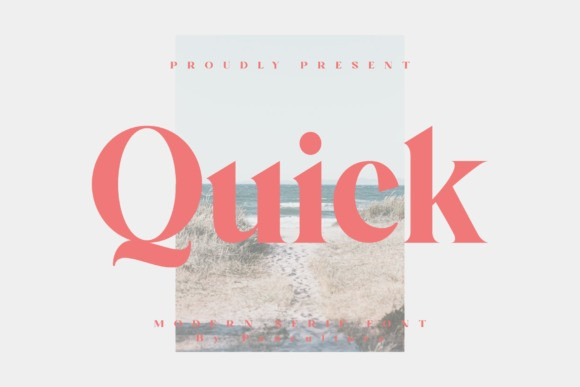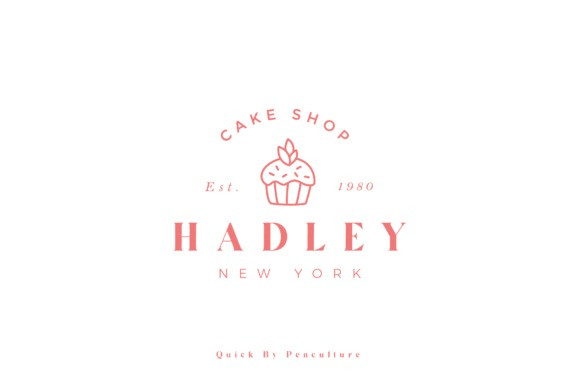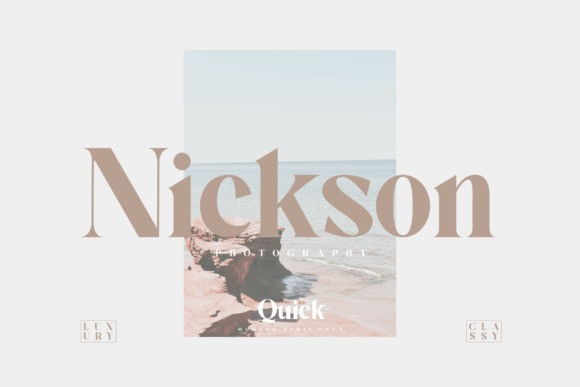
Quick Font
Quick is a trendy, authentic and bold serif font. This font is imposing and features beautifully shaped letters, and as a result, it will easily match a wide range of creations that require a distinct touch.